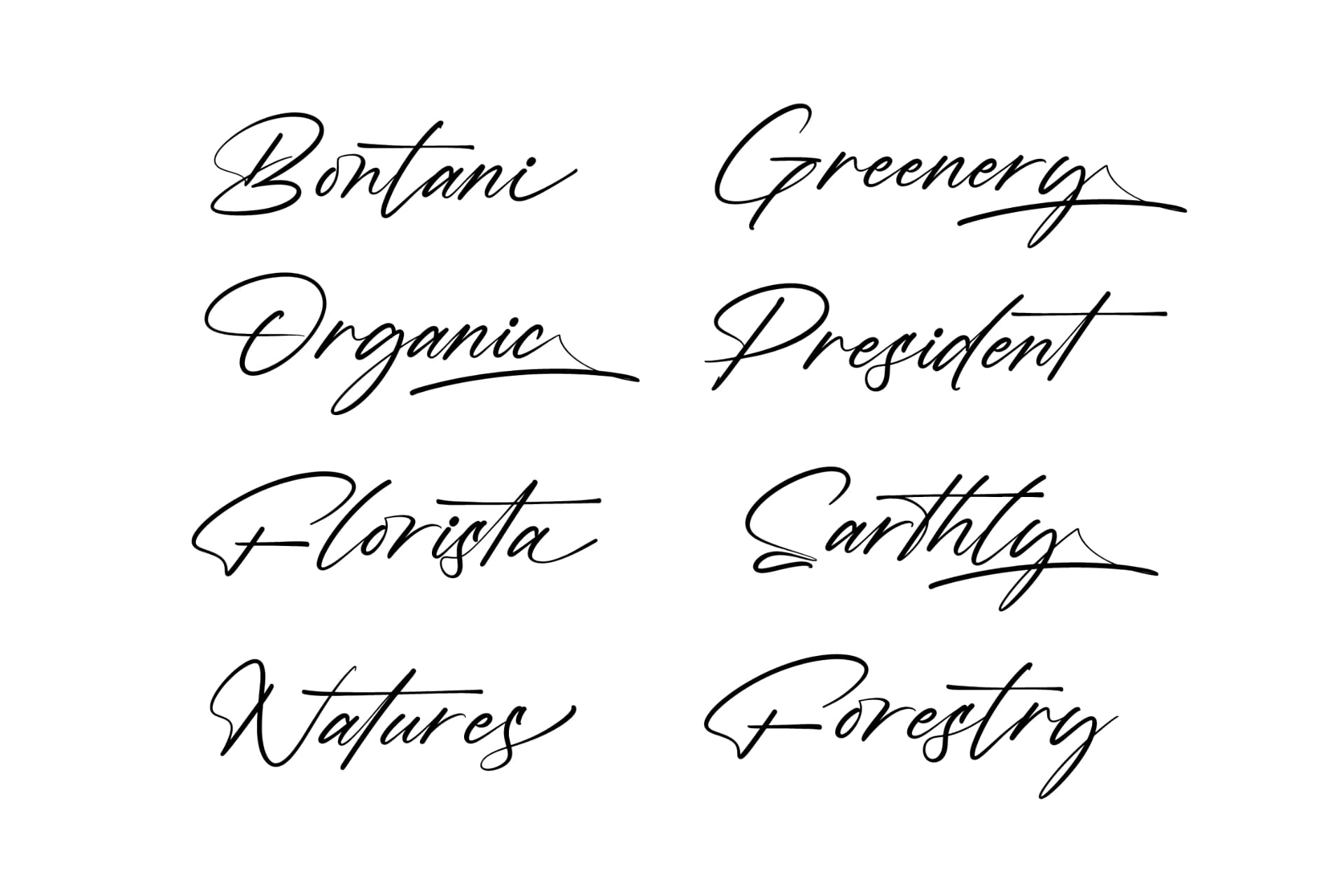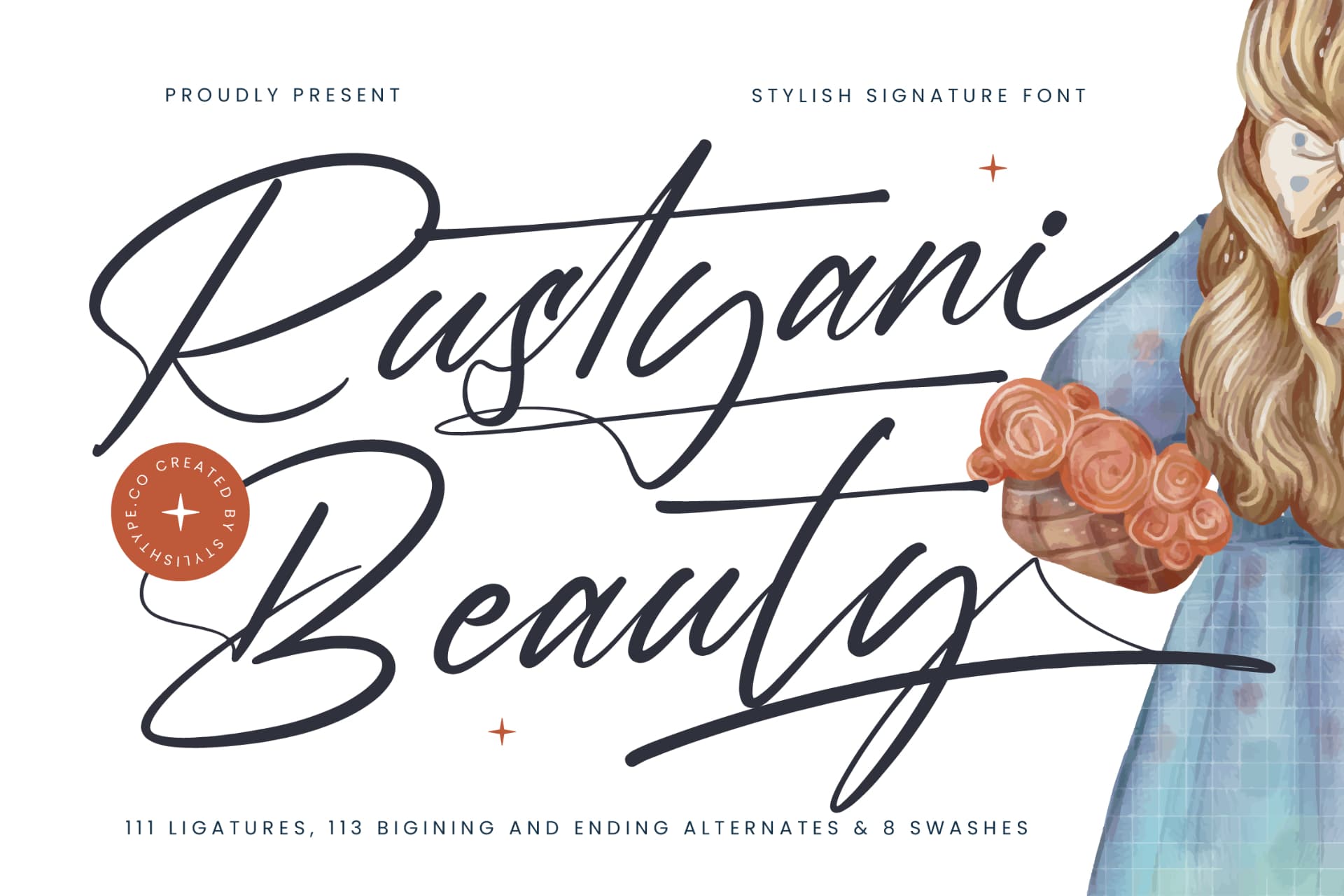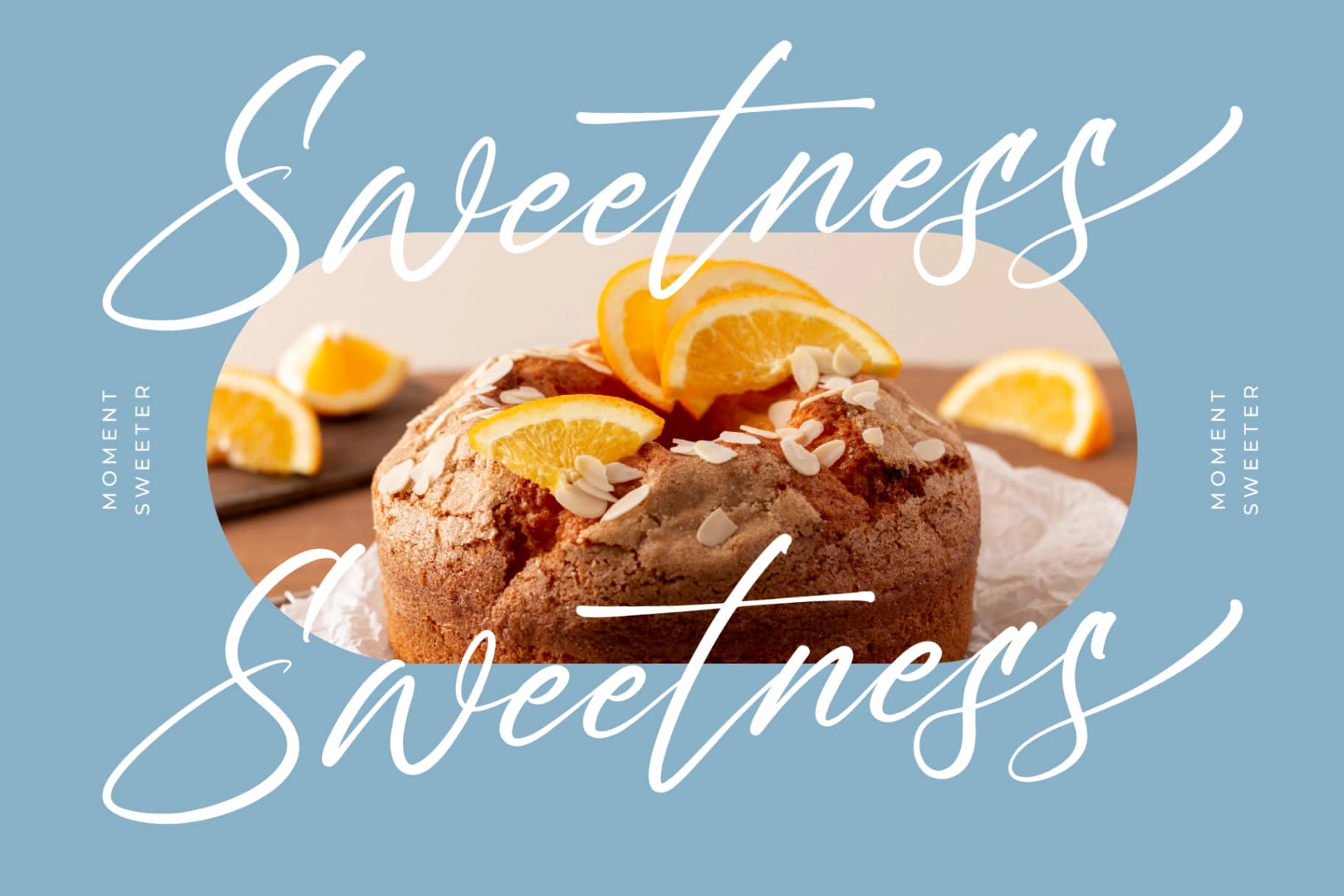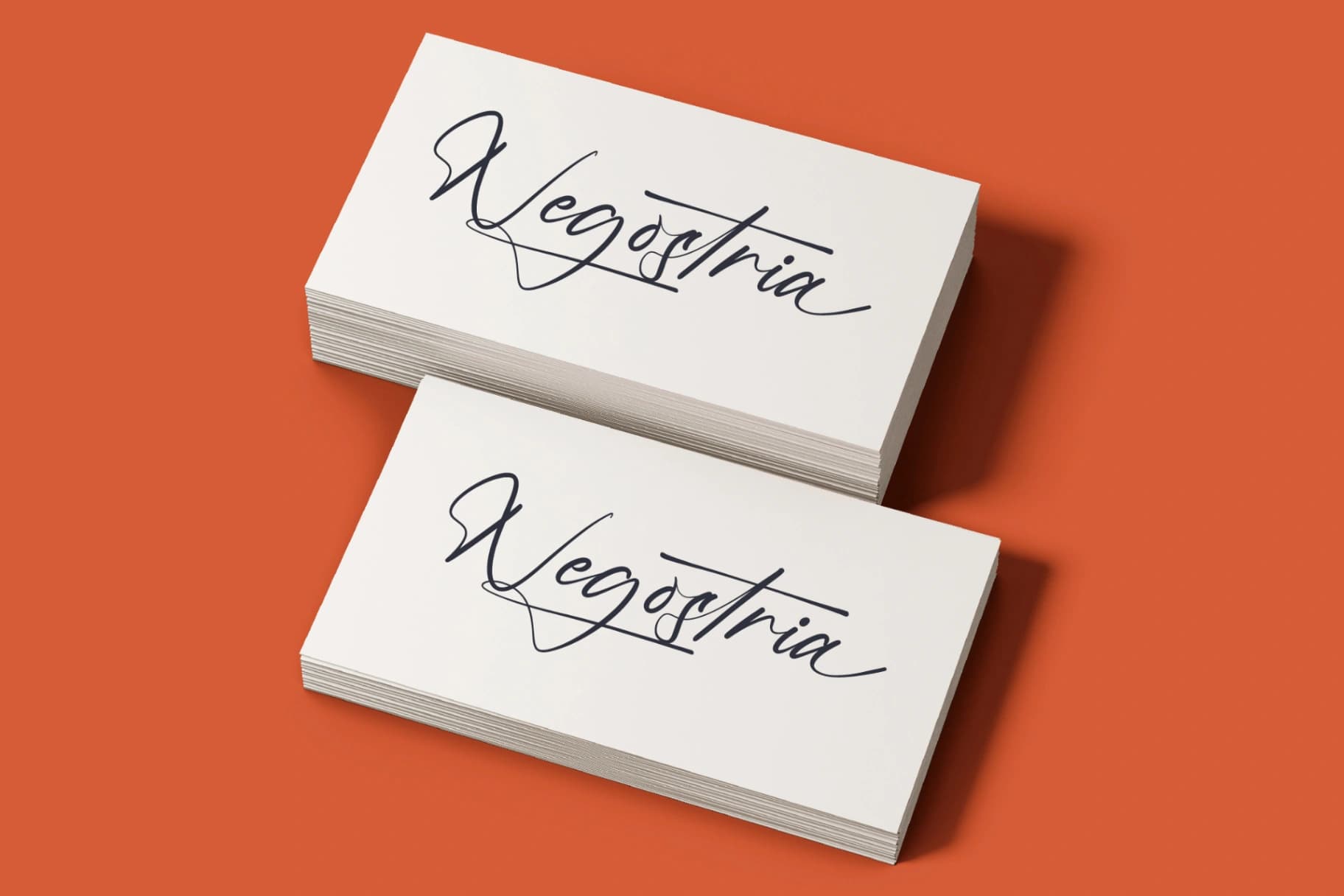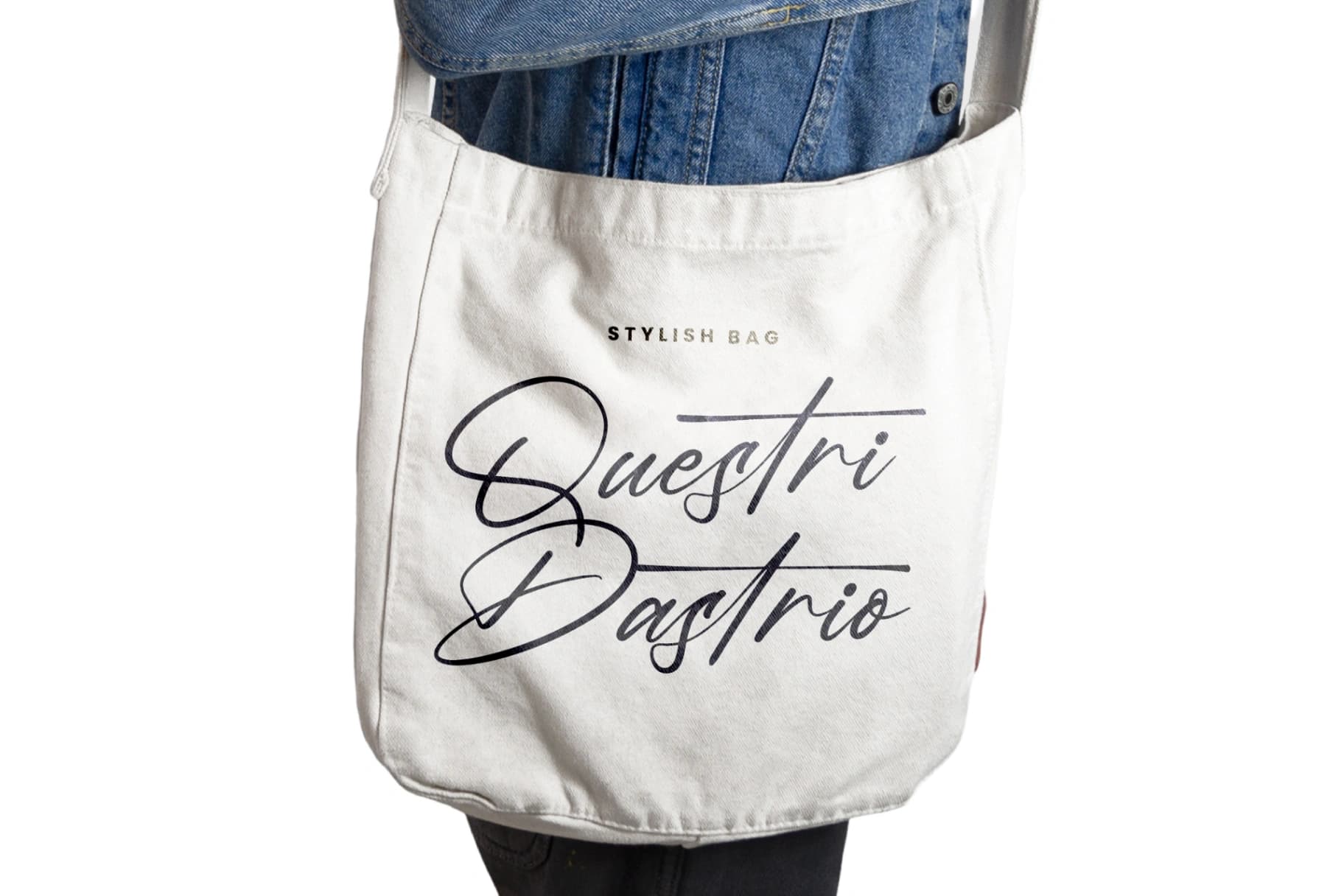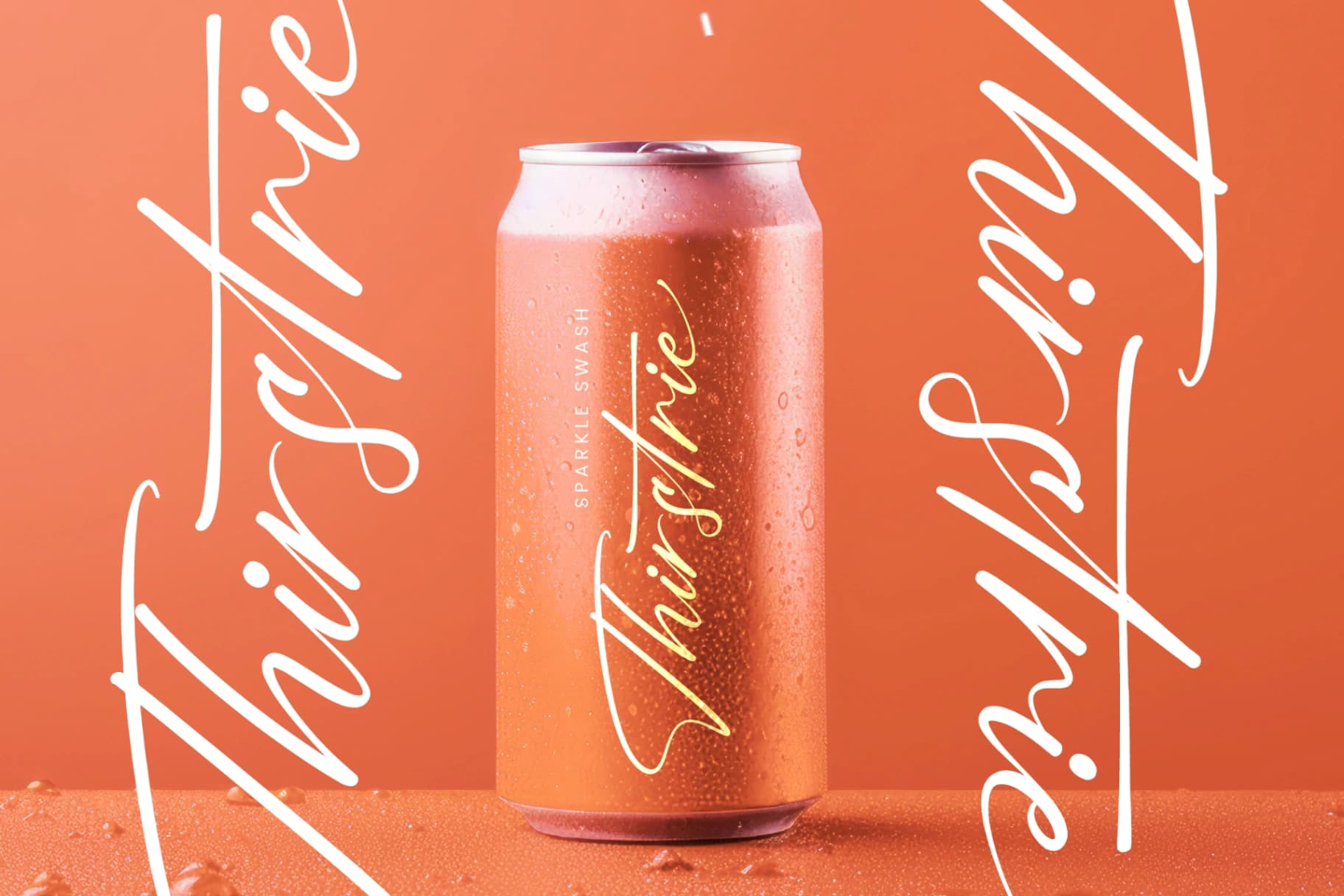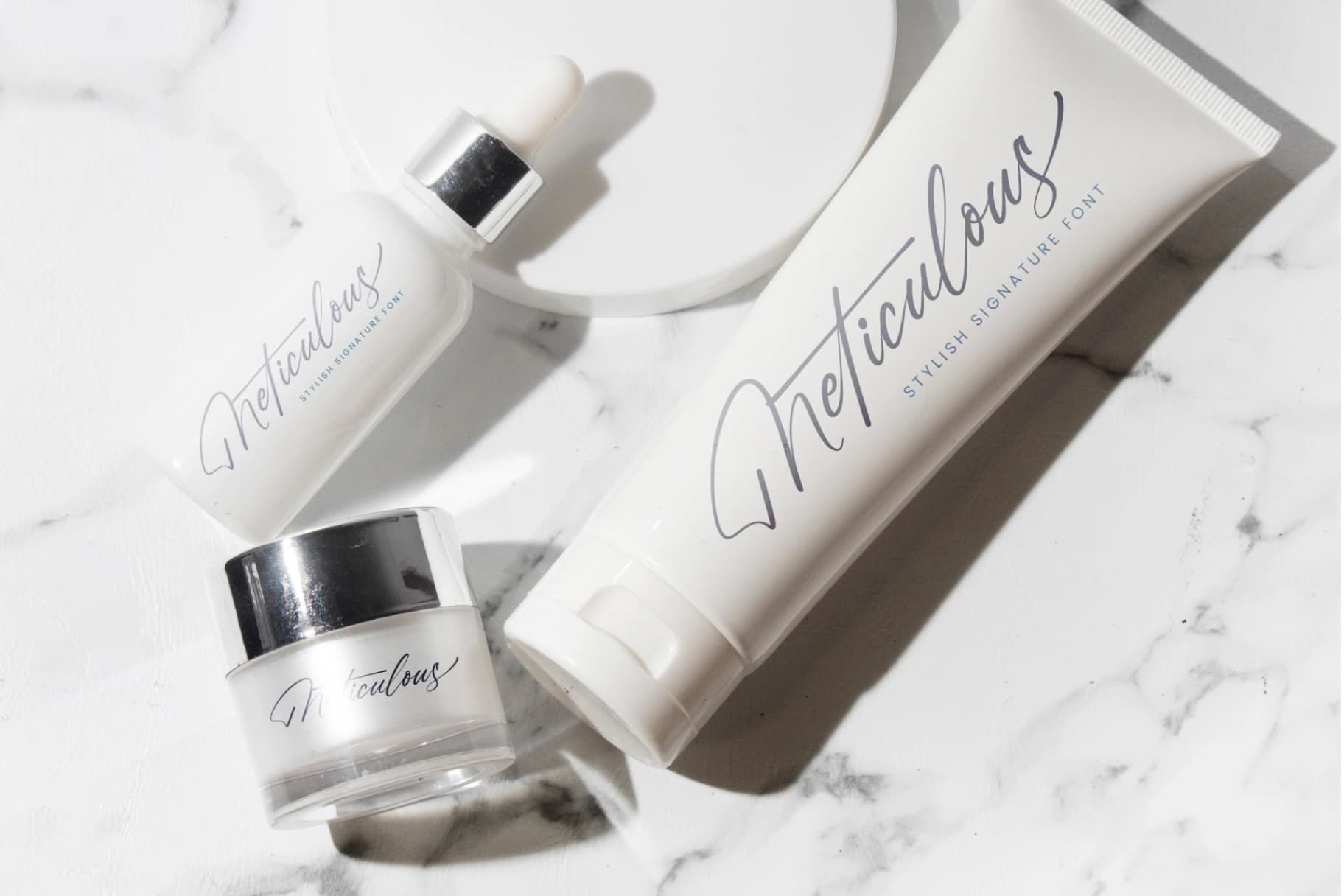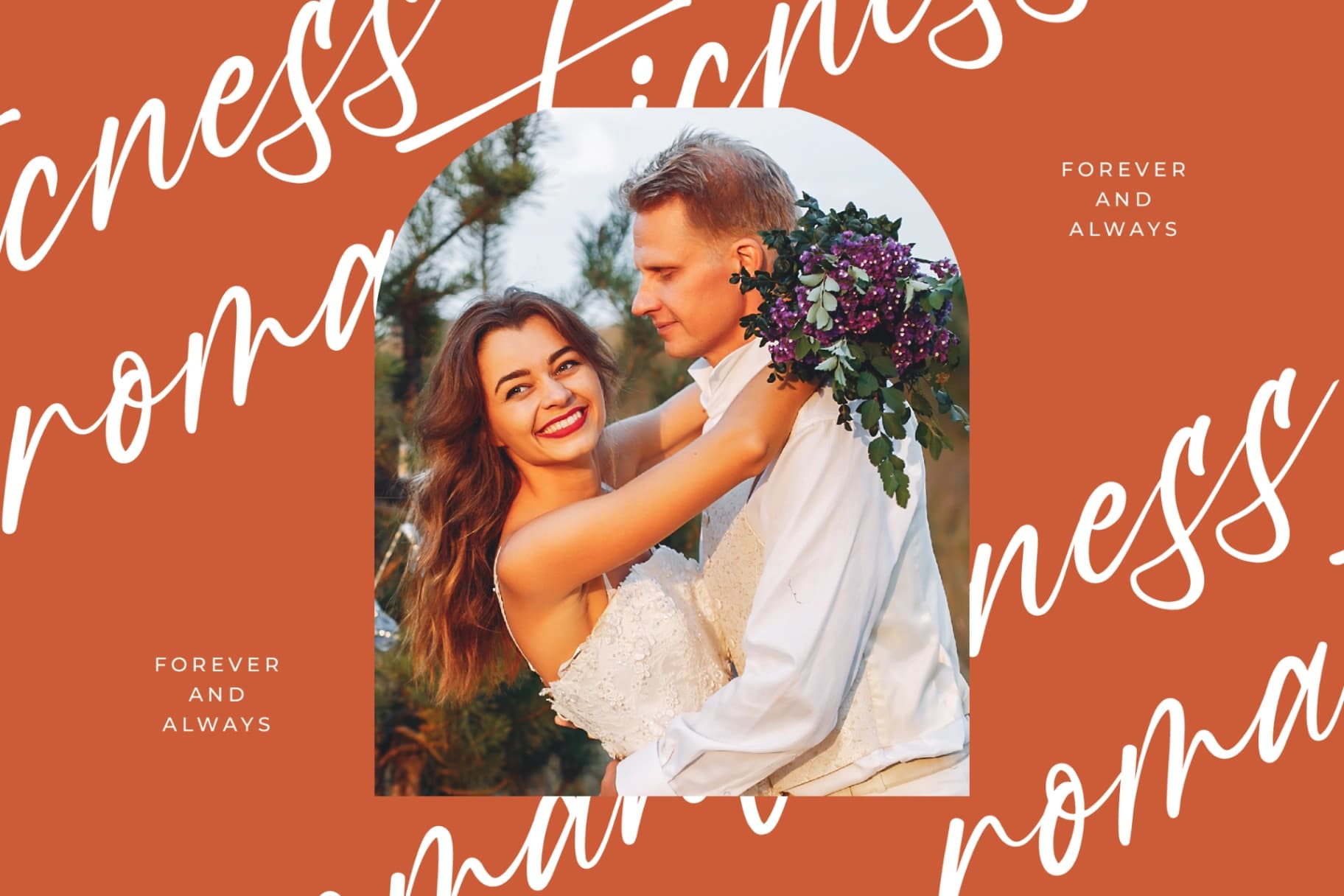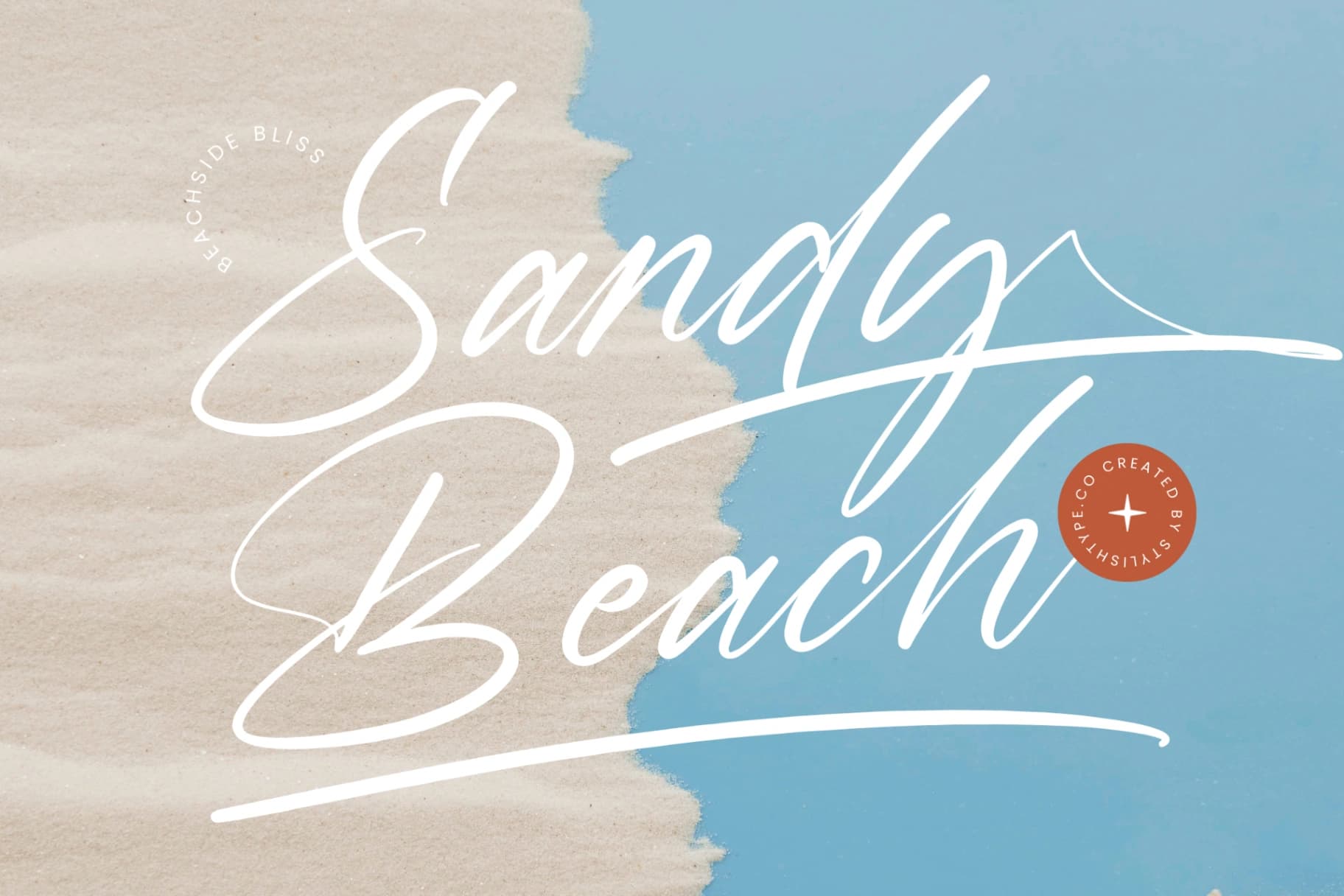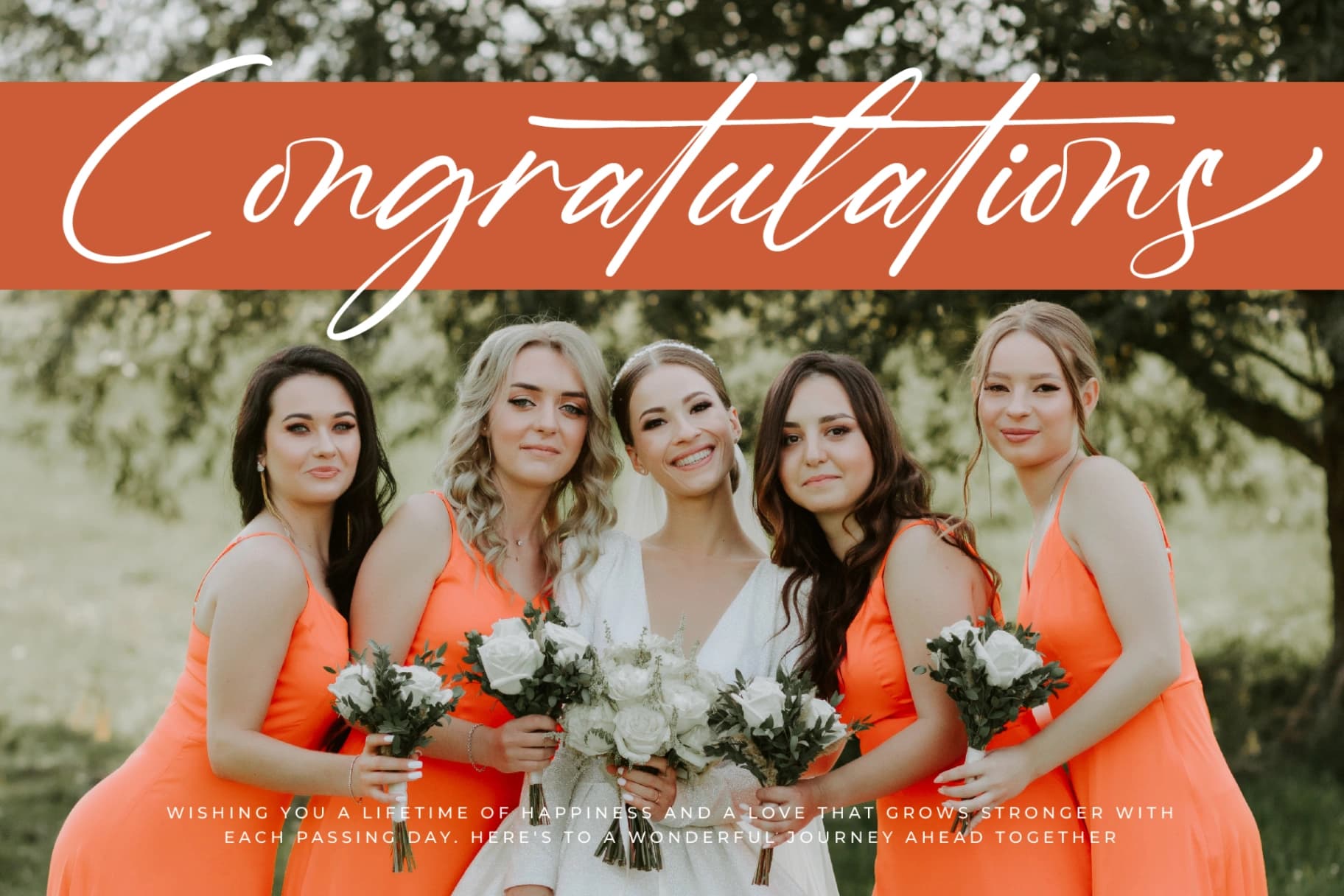
Rustyani Beauty - Stylish Signature Font
Rustyani Beauty is a stylish signature font created to combine modern elegance with natural handwritten flow. With its refined strokes, expressive ligatures, and graceful alternates, this typeface delivers the charm of authentic handwriting while keeping a polished, professional feel. Its versatility makes it an essential choice for designers looking to add personality, luxury, and artistic flair to their work.
The font excels in branding. Perfect for logos, boutique identities, luxury packaging, and personal monograms, Rustyani Beauty provides a unique signature style that communicates exclusivity and sophistication. Its handwritten essence ensures that branding projects feel original and memorable, making it suitable for both corporate and creative industries.
In editorial and publishing, the font brings elegance and personality. Magazines, book covers, invitations, and brochures benefit from its stylish rhythm and legibility. It helps designers create editorial layouts that combine refinement with expressive detail, ensuring that titles and covers stand out with impact.
Rustyani Beauty adapts beautifully to web typography. From websites and blogs to online portfolios and social media posts, it adds individuality and authenticity. Its calligraphic style enhances digital media projects that require a personal yet stylish identity, making it a great fit for influencers, creatives, and brands online.
Its expressive handwritten quality also makes it a strong asset for advertising and marketing. Posters, promotional campaigns, product labels, and flyers gain an eye-catching look with its flowing strokes. It ensures advertising feels impactful, elegant, and approachable at the same time.
The font is particularly suitable for wedding and event design. Its romantic curves and graceful swashes transform invitations, greeting cards, thank-you notes, and event signage into elegant keepsakes. With its emotional resonance, it is ideal for wedding branding, personal celebrations, and decorative stationery.
In packaging design, Rustyani Beauty shines on cosmetics, artisan products, gourmet foods, and lifestyle items, elevating the presentation with sophistication and storytelling. It makes packaging designs appear exclusive, stylish, and memorable, helping products connect emotionally with consumers.
Rustyani Beauty includes 111 ligatures, 113 beginning and ending alternates, and 8 beautiful swashes, offering flexibility for customization. These features allow endless creative combinations, ensuring that every project feels bespoke and expressive.
This font is more than a design tool—it is a stylistic signature. Rustyani Beauty empowers creatives to deliver projects that embody authenticity, romance, elegance, and modern sophistication, making it a timeless addition to any professional design collection.